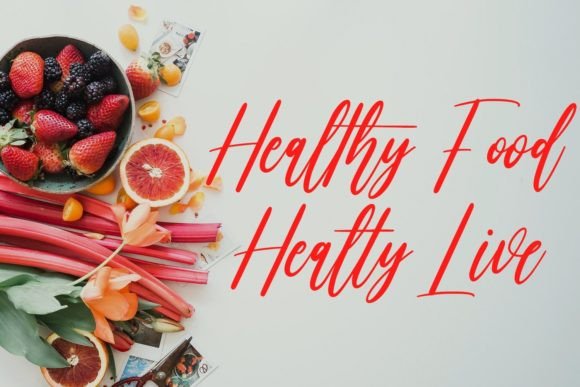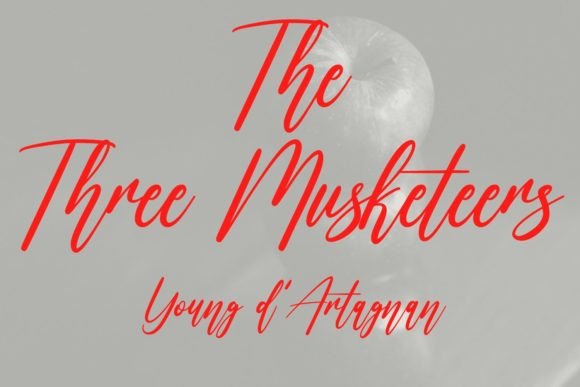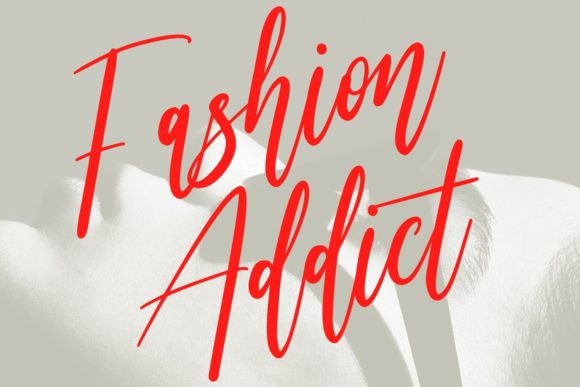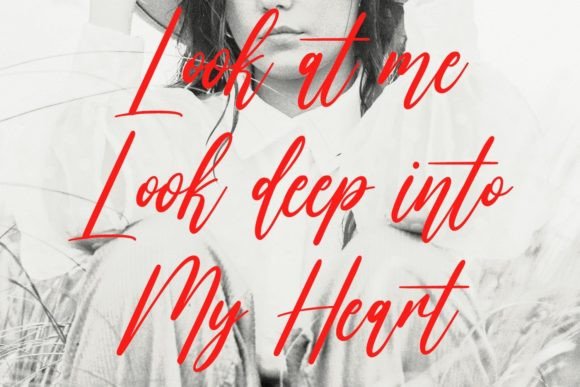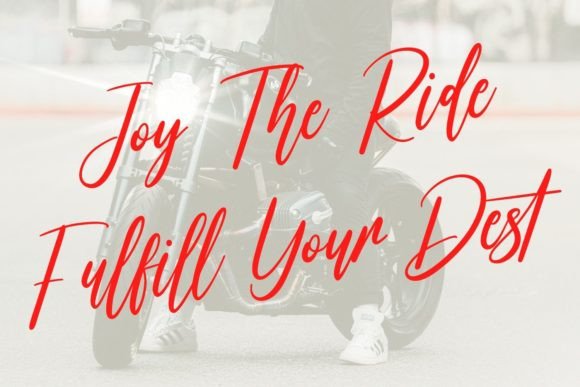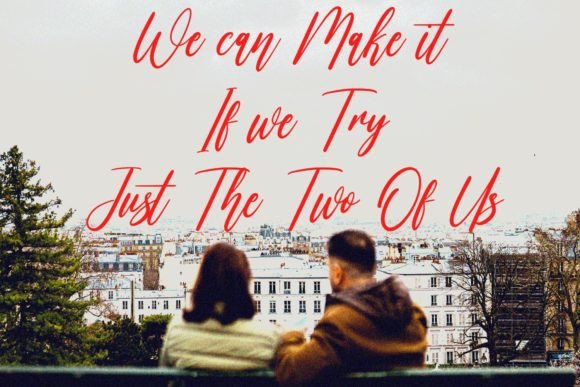
Introduction to Rollats Font
Rollats is an expressive signature script font.
With high contrast stroke, long connected, fun character with a bit of ligature and alternates This font is good for logo design, Social media, Movie Titles, Books Titles, short text even long text letters, and good for your secondary text font with sans or serif.
Key Features of Rollats Font